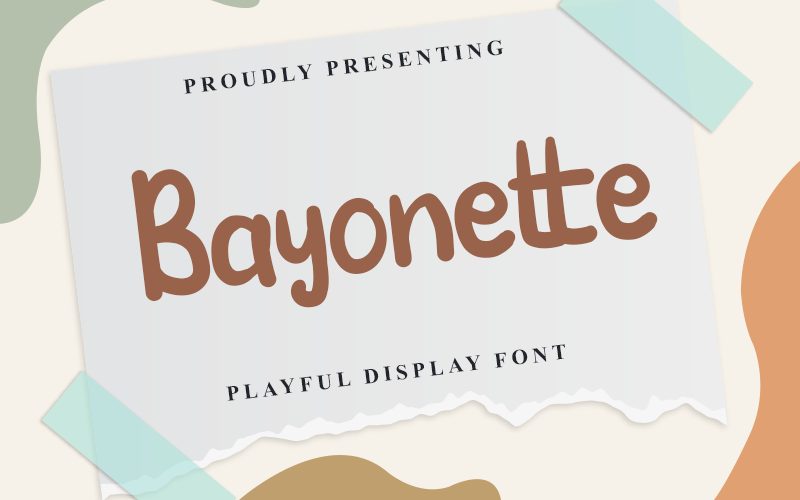
Preview and download Bayonette Font. Created by Denny Sutanto in Script Handwritten styles with Free for personal use license.
Bayonette Font is a fun and playful handwritten font! This is a Fun and happy font that suitable for Seasonal theme. What�s Included : � OTF & TTF � Works on PC & Mac � Easy to use ( Installations ) � Easy Convert to webfont � Compabilty Windows, Apple, Linux, Cricut, Silhouette and Other cutting machines NOTE: This Demo is for PERSONAL USE ONLY! But any donation are very appreciated. PayPal Account for Donations: https://lnkd.in/fPg-VuA Link for Donations via PayPal: paypal.me/dennysutanto93 link to purchase full version and commercial license: - Creative Fabrica: https://lnkd.in/gfhZADx Please visit our store for more great fonts: - https://lnkd.in/gZAu7qx and follow my Instagram for update: https://lnkd.in/fGNU4rs Thank You |